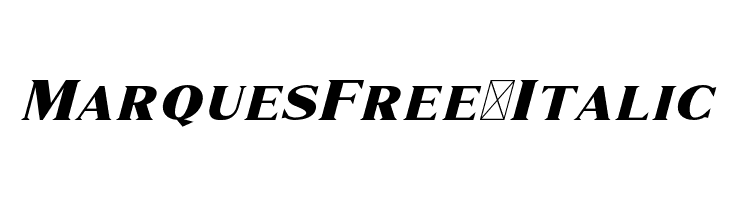
( George Williams - web.archive.org/web/20051223080638/bibliofile.mc.duke.edu/gww/fonts/fonts.html )
An elegant, italicized font with medium contrast and flowing design.
( Sarcosmic Fonts )
A playful font with stick figures holding each character, adding a whimsical touch.
( Fonts by Kimberly Geswein )
( گالری فانت فارسی پژوهش آريانا - only compatible with Farsi and Arabic )
A bold, angular font with a modern geometric style.
A whimsical, hand-drawn font with fluid, organic strokes and dynamic character forms.
An elegant, flowing script font with bold, cursive letterforms and decorative flourishes.
A bold, high-contrast serif font with a classic and authoritative style.
( Swapnil Deshpandey - www.behance.net/crash2405 )
A playful, hand-drawn font with rounded serifs and a whimsical style.
A bold, brush-style font with high contrast and artistic flair.
( Fonts by Harjuno Kristanto )
Playful decorative script font.